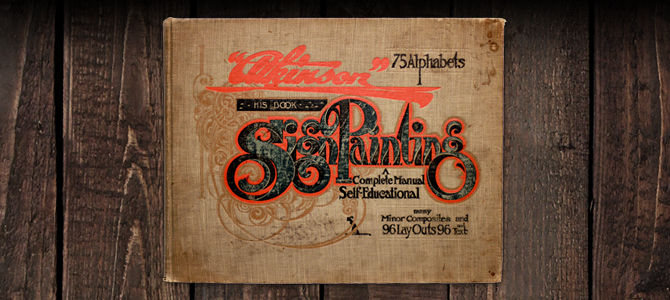
Atkinson's Sign Painting - Frank Atkinson - 1915
Commonly referred to as the "Sign-Painter's Bible", this book is the grand-daddy of all inspirational and instructional material in the sign world. This book has hundreds of full layouts for advertising, billboards, and beyond with a massive collection of alphabets from the commonplace to the downright obscure. The first section is an extremely in-depth primer in a variety of different skills from how to hold a brush all the way through gilding and glass work. This, above nearly all of the books in this collection, is a must own.